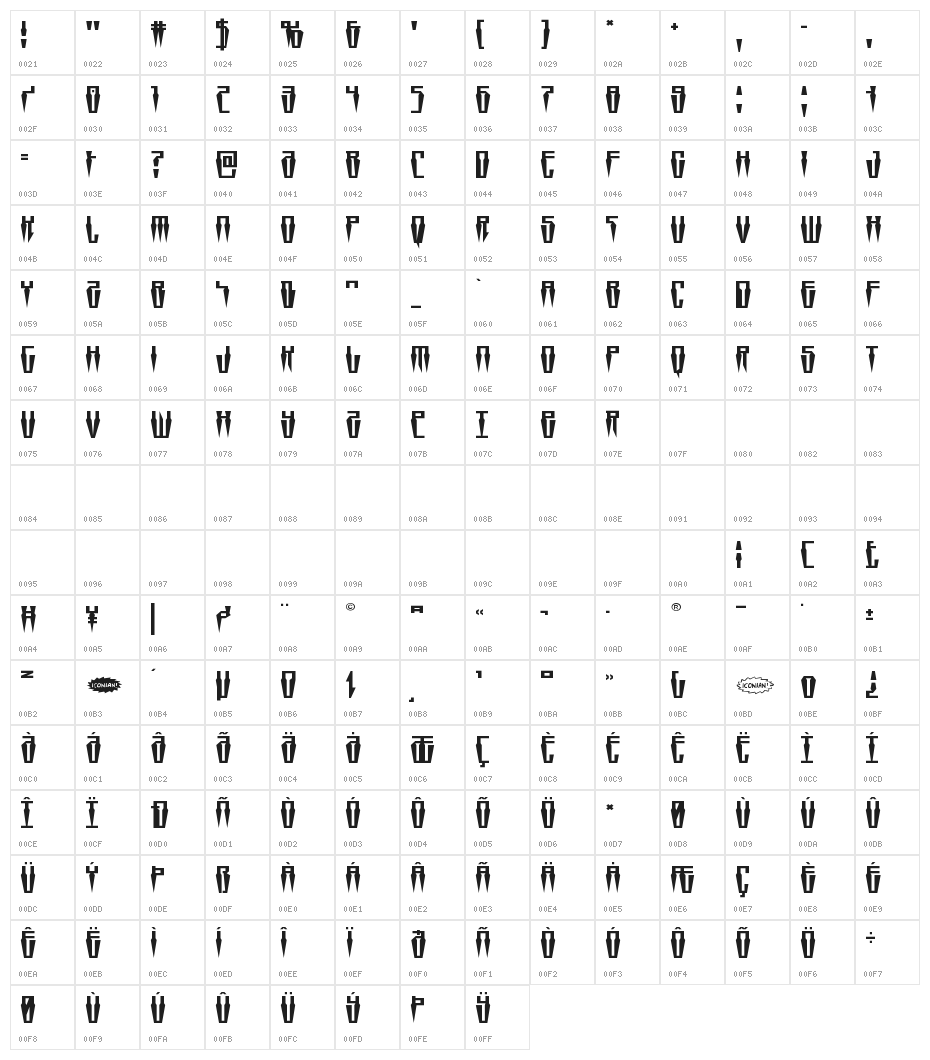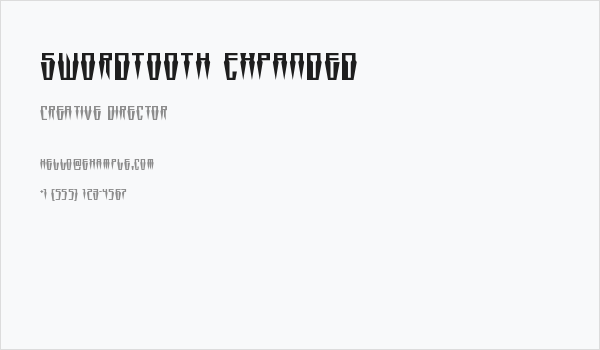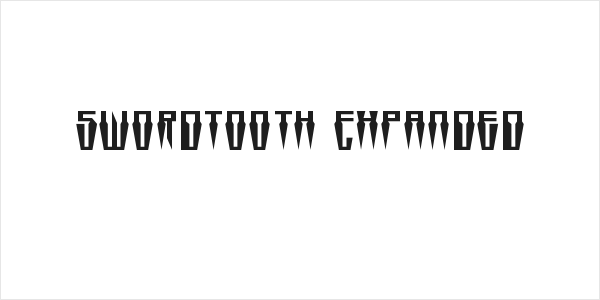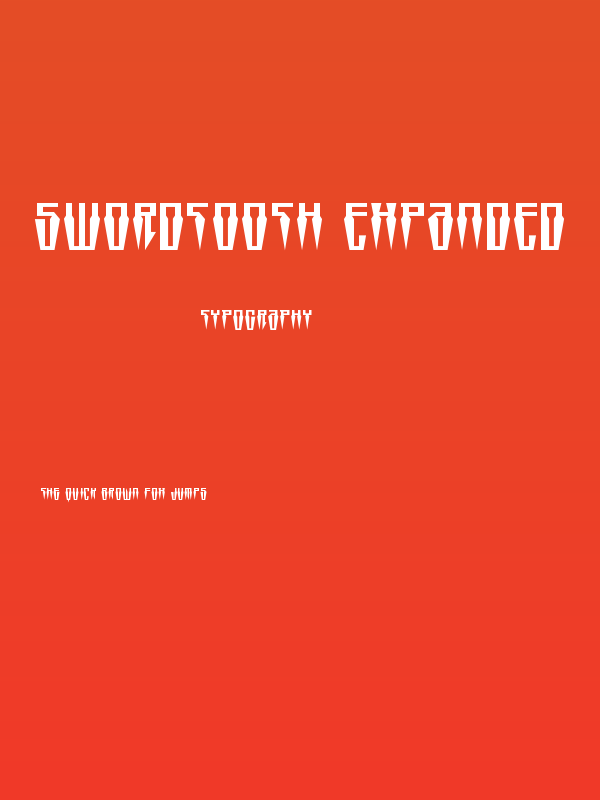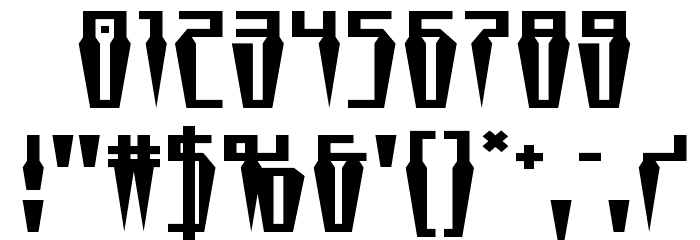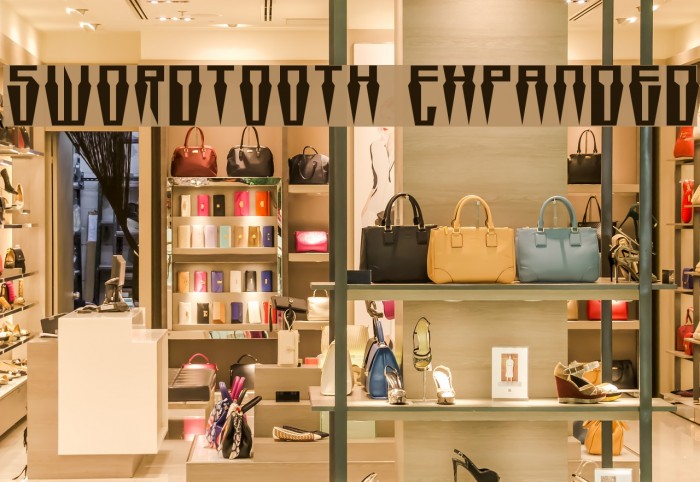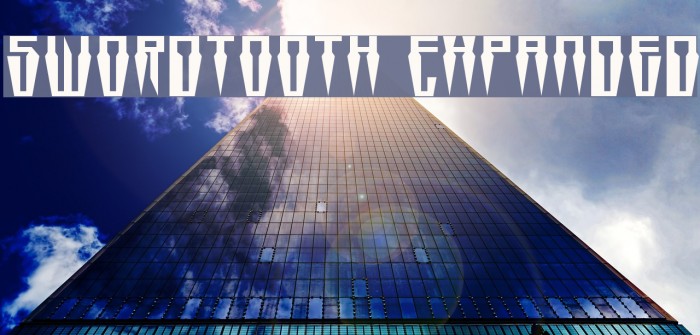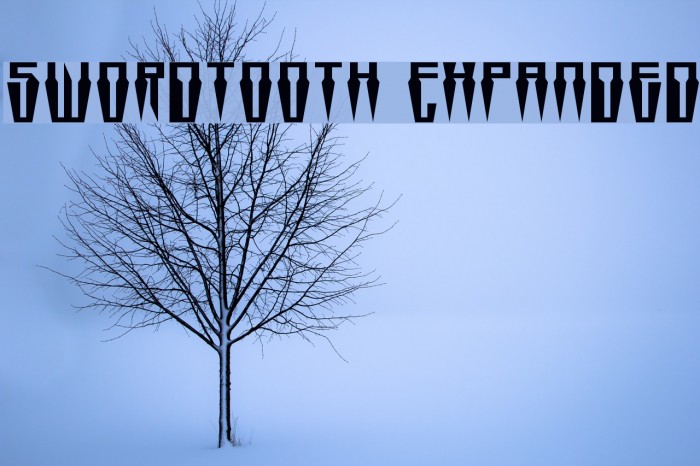
Swordtooth Expanded Font
Swordtooth Expanded Description
This font features a bold, angular design with sharp, pointed edges reminiscent of swords or daggers. The characters are highly stylized, with a distinct geometric structure that gives them a futuristic and aggressive appearance. The uppercase and lowercase letters maintain a consistent height, creating a uniform look across the text. Numbers and special characters follow the same design principles, ensuring cohesion throughout. The font's expanded width allows for a dramatic presence, making it ideal for attention-grabbing headlines or titles. Its unique style is perfect for projects that require a strong, impactful visual statement.
| Overall Style | Futuristic, Aggressive |
| Proposed Projects | Ideal for video game titles, movie posters, branding for edgy products, or any project needing a striking, futuristic look. |